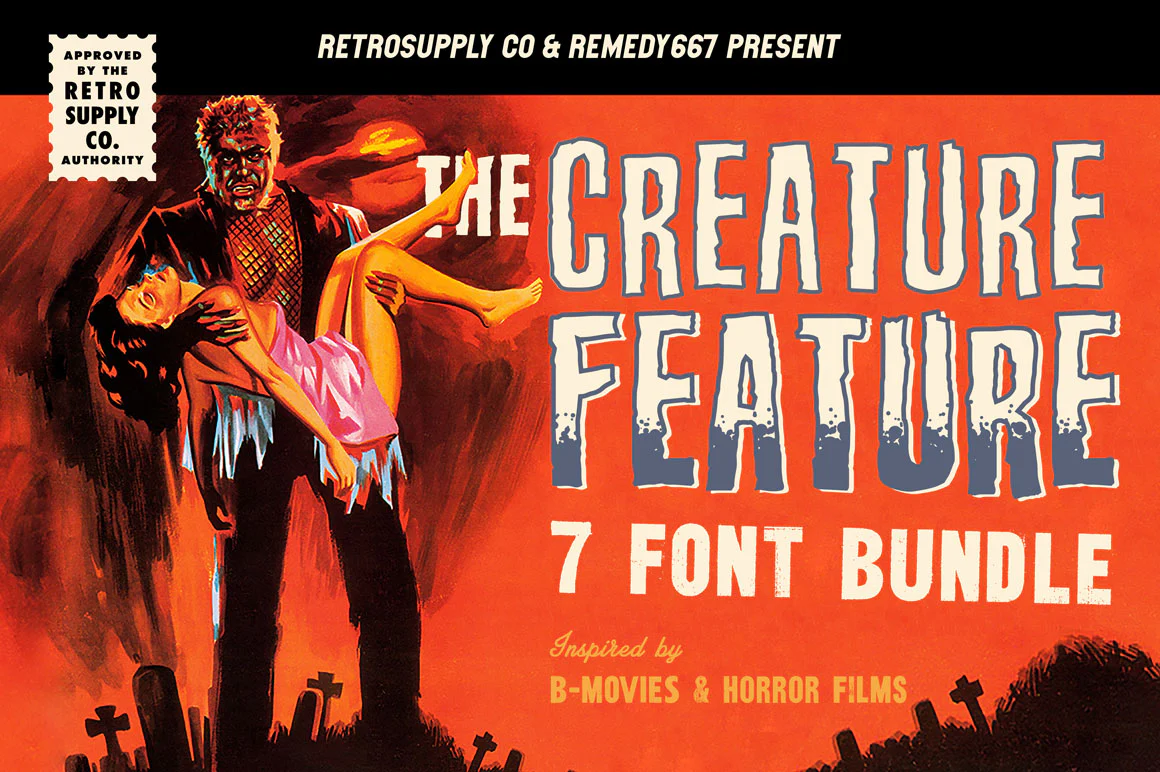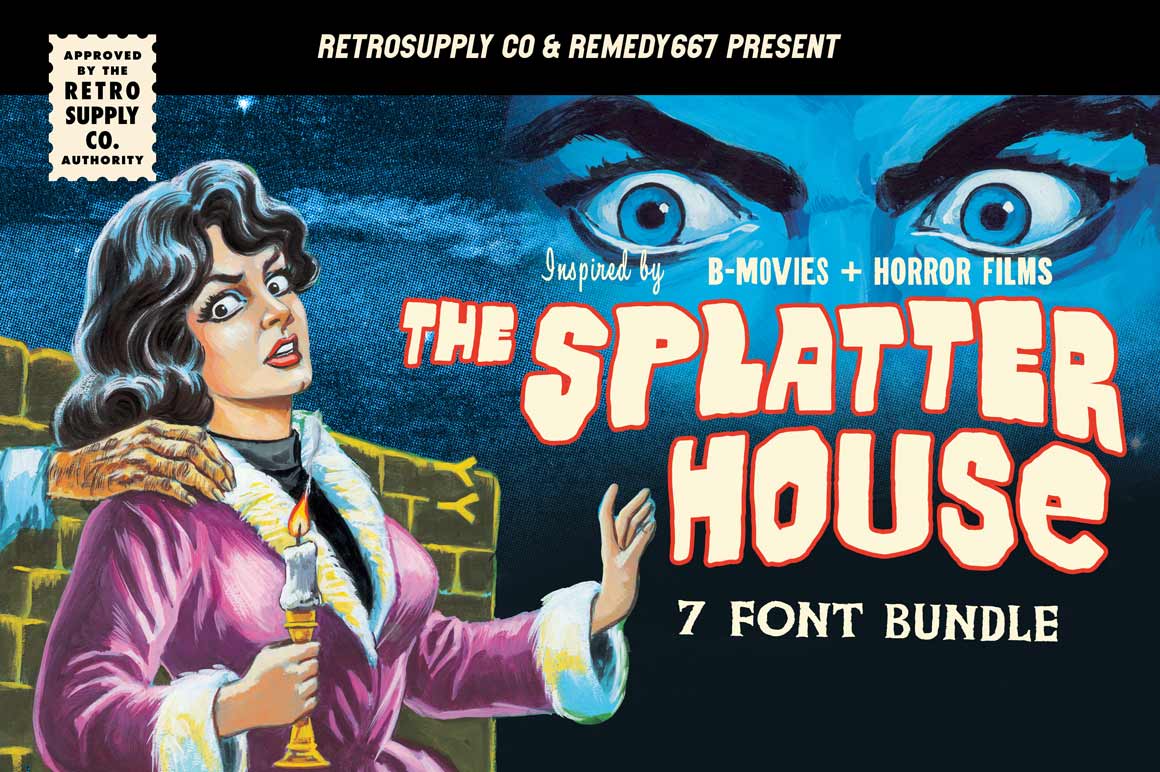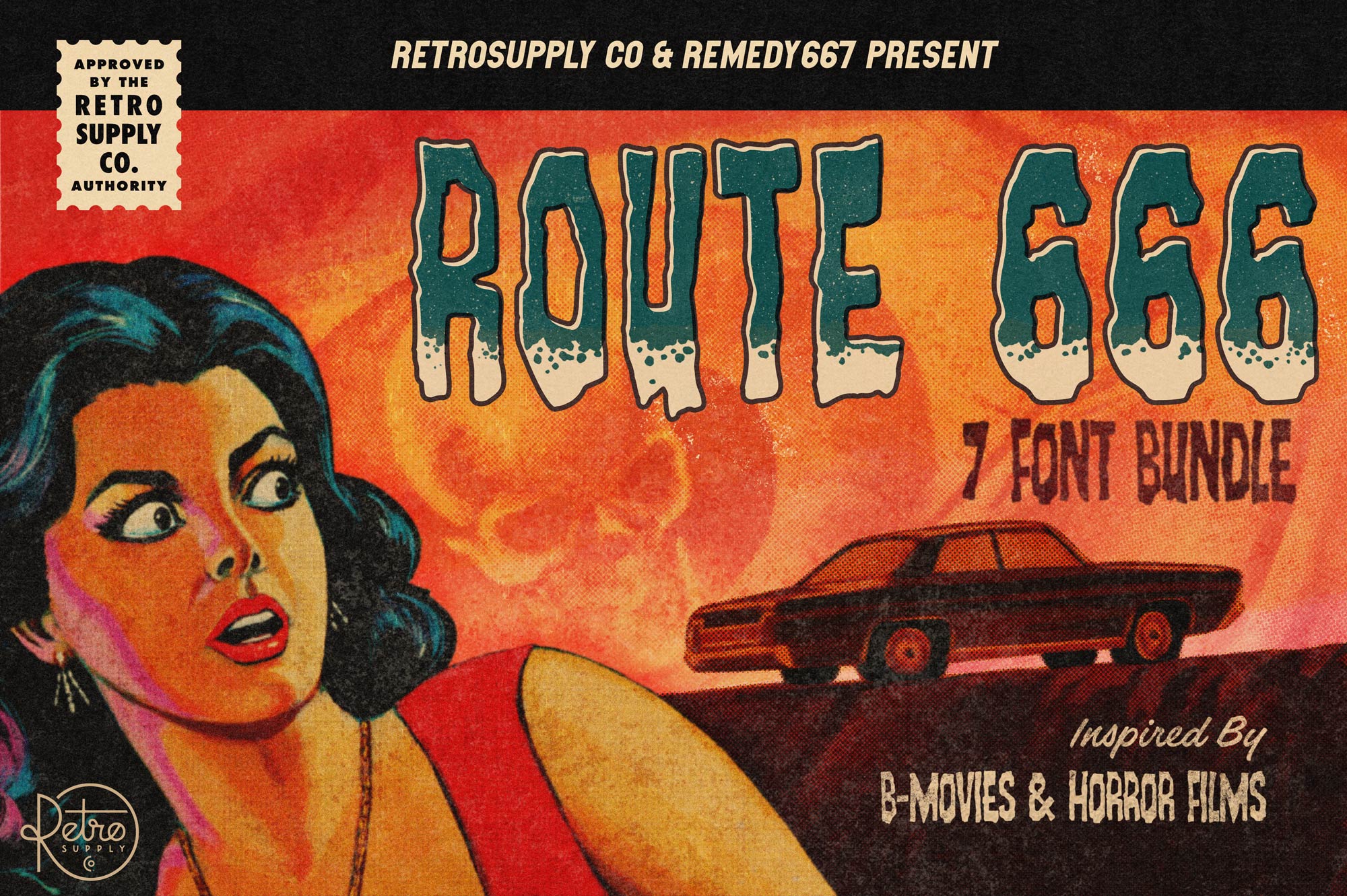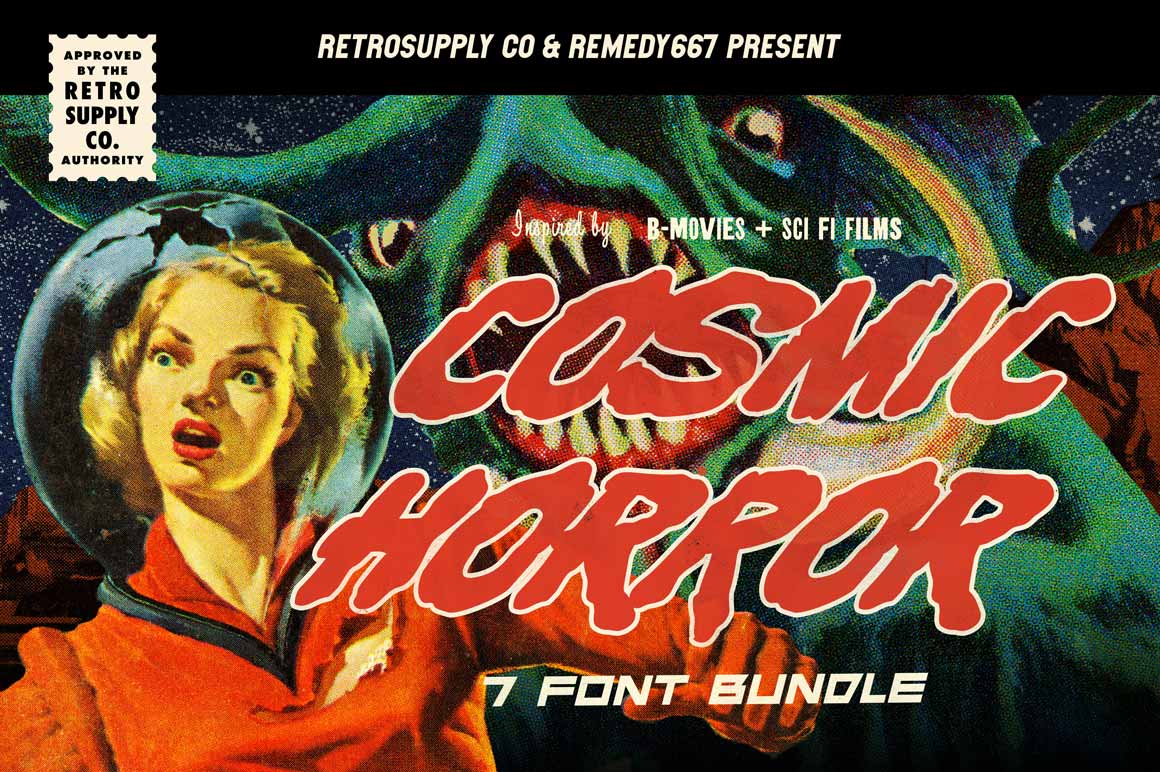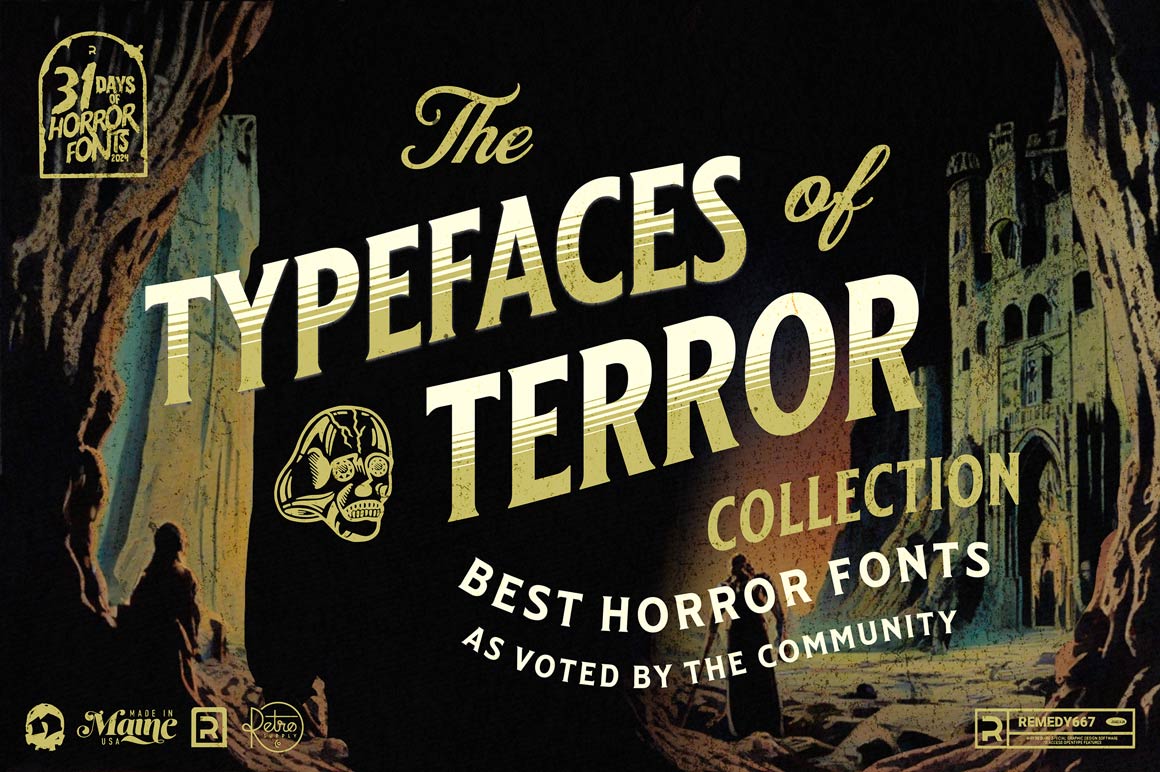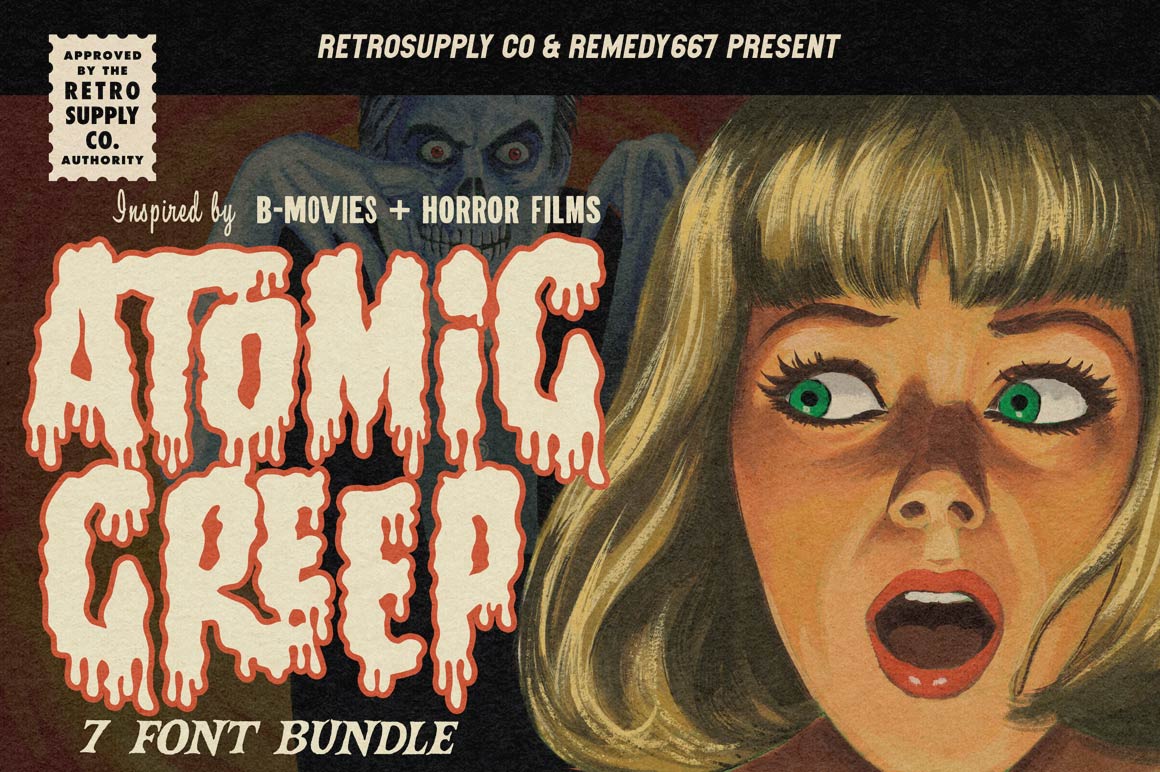
The Horror Font Archive
For the first time ever, RetroSupply Co. and Remedy667 have joined forces to unleash every horror typeface in our collective arsenal, all in one twisted, terrifying, type-obsessed collaboration.
Introducing the Horror Font Archive, a vault of 48 fonts from 7 horror font bundles inspired by vintage slashers, creature features, atomic paranoia, and interdimensional dread.Â
- 48 Fonts from 7 Bundles. Includes every horror font we've ever released from atomic-era terror to 80s VHS slashers.
- Built by Horror Nerds. Crafted by Remedy667, the underground king of creepy fonts.
- Perfect for Posters, Merch & Covers. Whether youâre working on a zine, label, or movie poster, youâll have the perfect scream-worthy font.
- Inspired by Classic Horror. Lovecraft, Roger Corman, grindhouse theaters, vintage comics, itâs all here.
Here's the Included Font Packs:
- Bikini Bloodshed Font Bundle
- Route 666 Font Bundle
- Atomic Creep Font Bundle
- The Cosmic Horror Font Bundle
- The Creature Font Bundle
- The Splatter House Font Bundle
- The Typefaces of Terror Collection
Each bundle includes multiple fonts crafted for designers who crave drama, decay, and darkness. Every typeface has been meticulously illustrated, textured, and tuned to deliver max impact in horror-themed work.